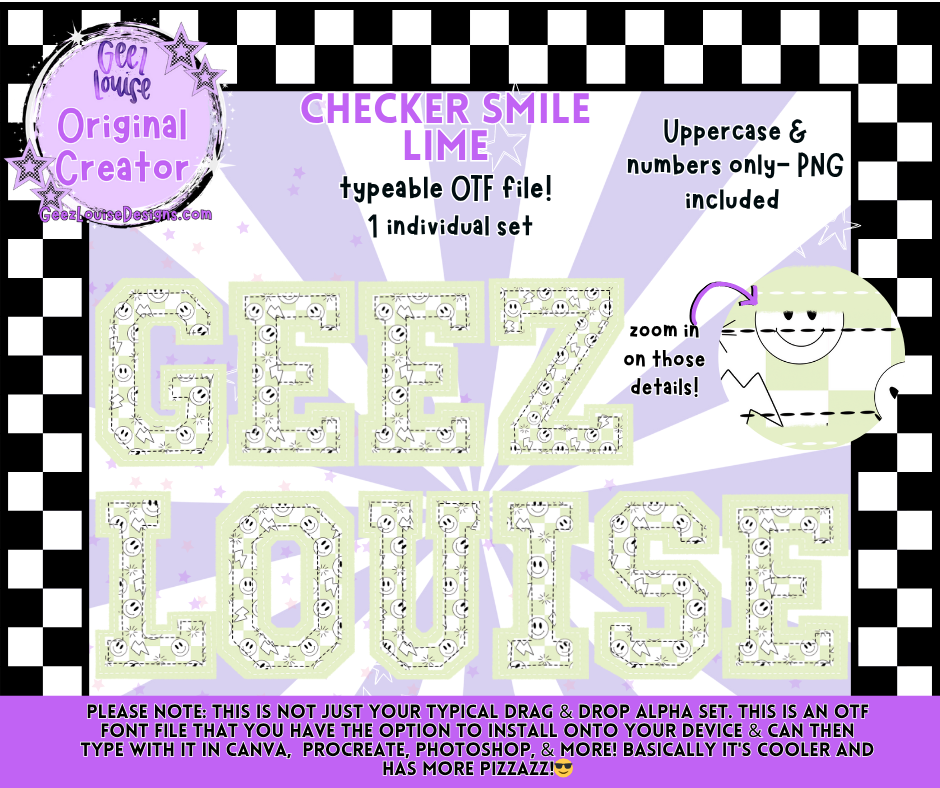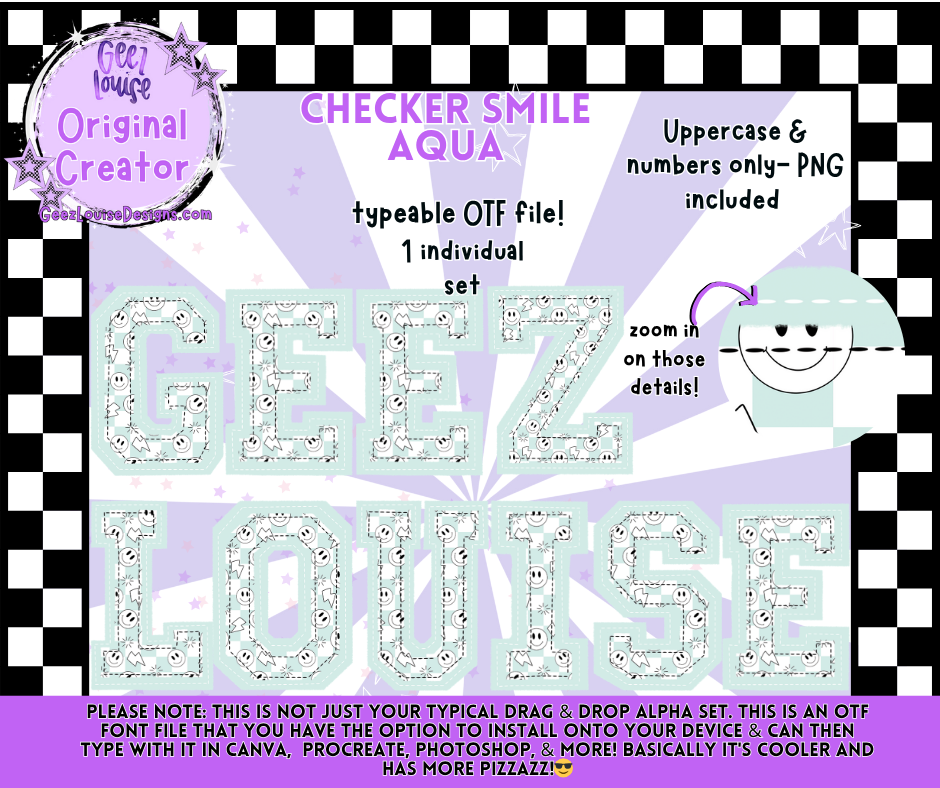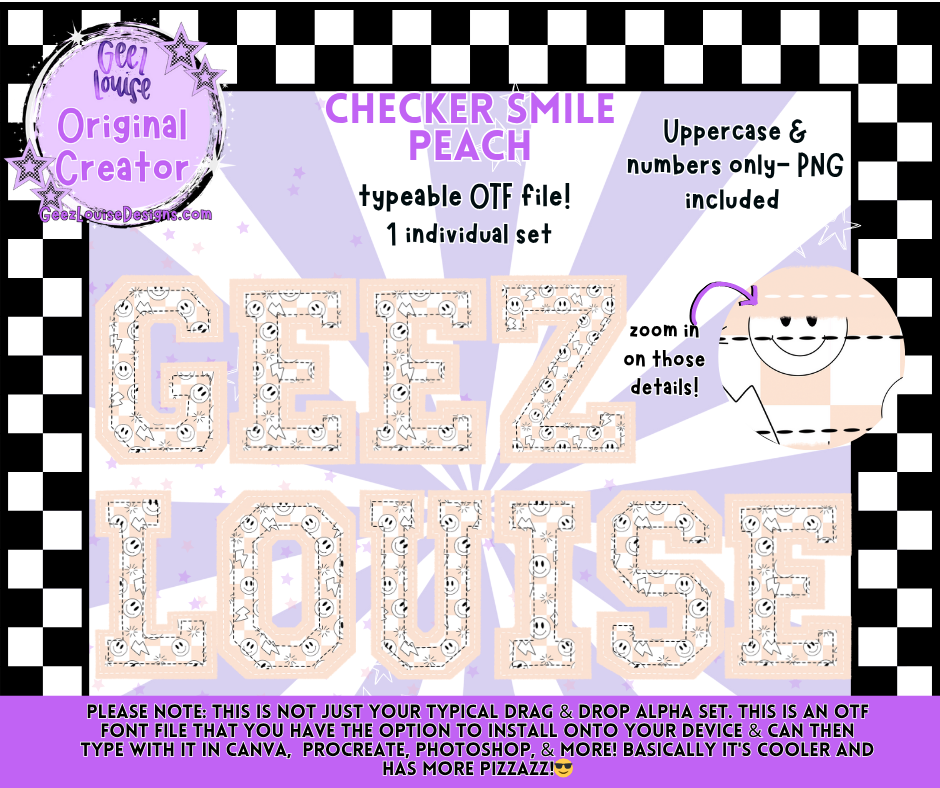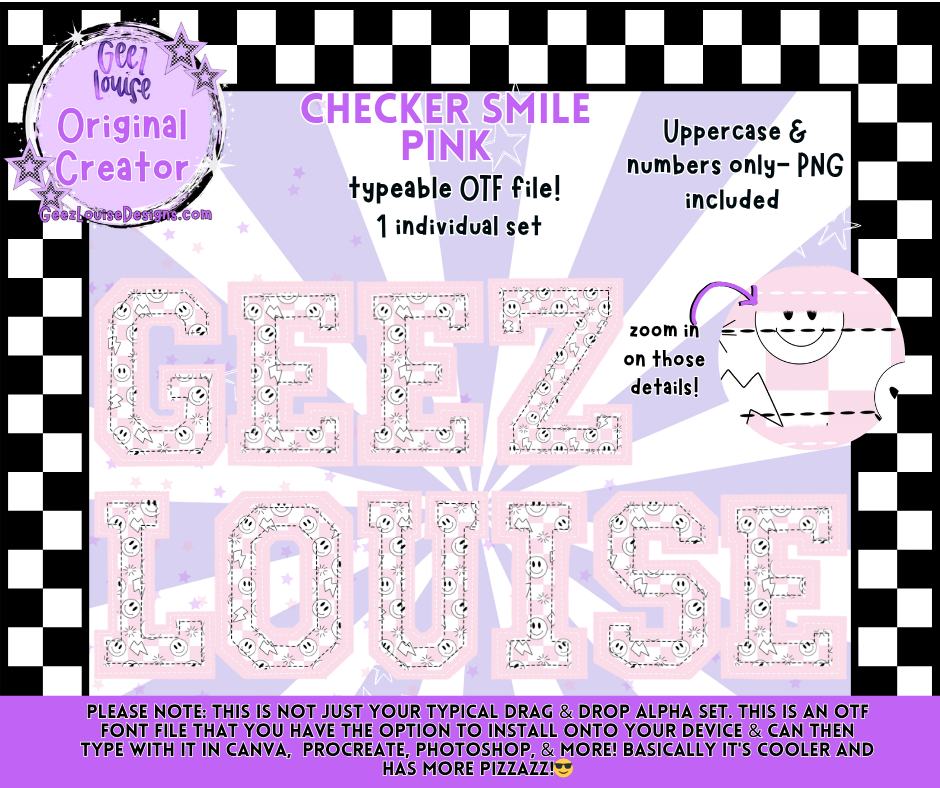
Checker Smile Typeable OTF Font + PNG Set
Add instant good vibes to your designs with the Checker Smile Typeable OTF Font! 💧😁
This playful font blends a trendy checkerboard pattern with cheerful smiley faces for that perfect mix of retro and fun. It’s a fully typeable OTF file — install it on your device and start typing in Canva, Procreate, Photoshop, and more! Each uppercase letter and number features colorful pastel tones with happy little faces that bring your text to life.